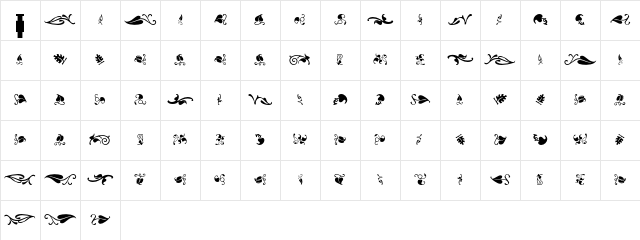
Vine Leaves2XH Free Font
Vine Leaves2XH
Style: Leaves2XH
Vine Family
Design Context for Vine
Vine is a composed and adaptable typeface that performs quietly and consistently across a wide range of design contexts.